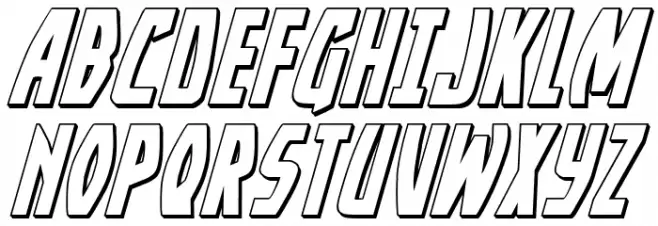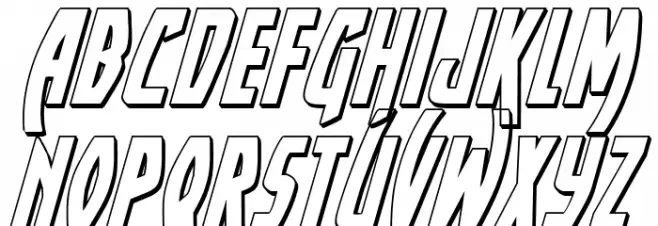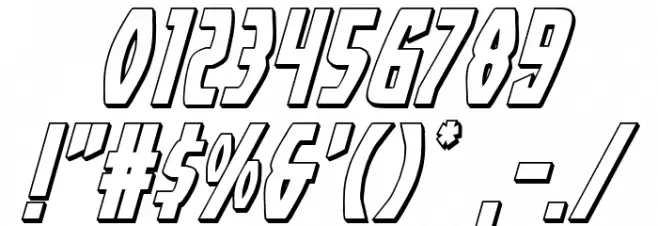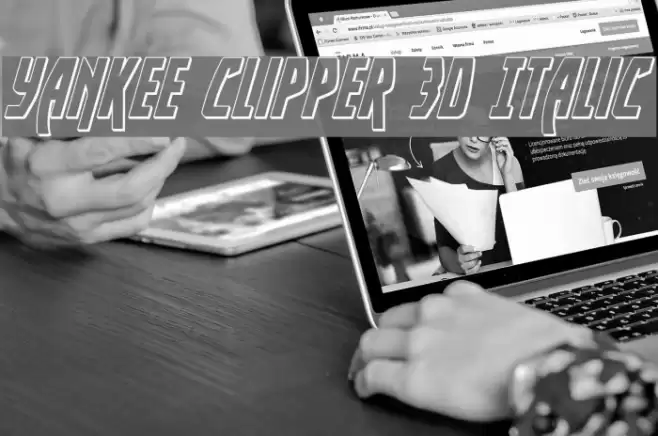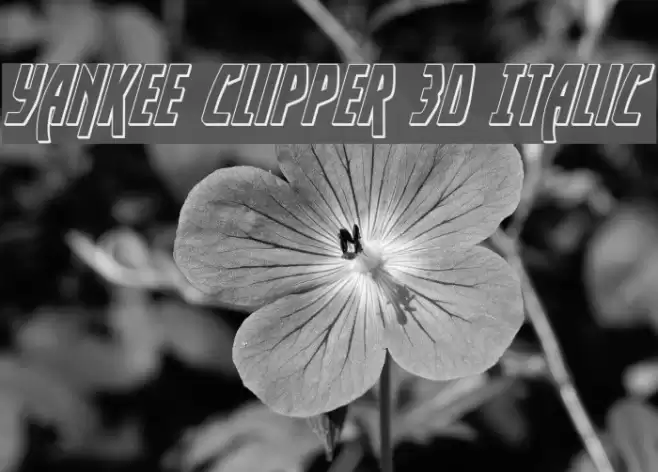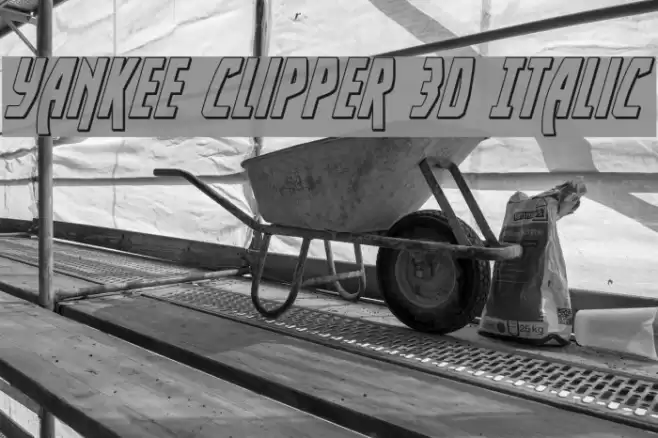
Yankee Clipper 3D Italic
This font features a bold, three-dimensional design with a distinct italic slant, giving it a dynamic and energetic appearance. The characters are outlined, providing a sense of depth and movement. The uppercase and lowercase letters maintain a consistent style, with sharp angles and clean lines that enhance its modern and futuristic feel. The numerals and special characters are equally bold and maintain the same 3D effect, ensuring uniformity across all elements. This font's unique style makes it stand out, perfect for projects that require a strong visual impact.
A bold, 3D italic font with a modern and dynamic style.
- Proposed Projects: Ideal for sports branding, video game titles, posters, and any design needing a bold, impactful look.
- Contrast: High